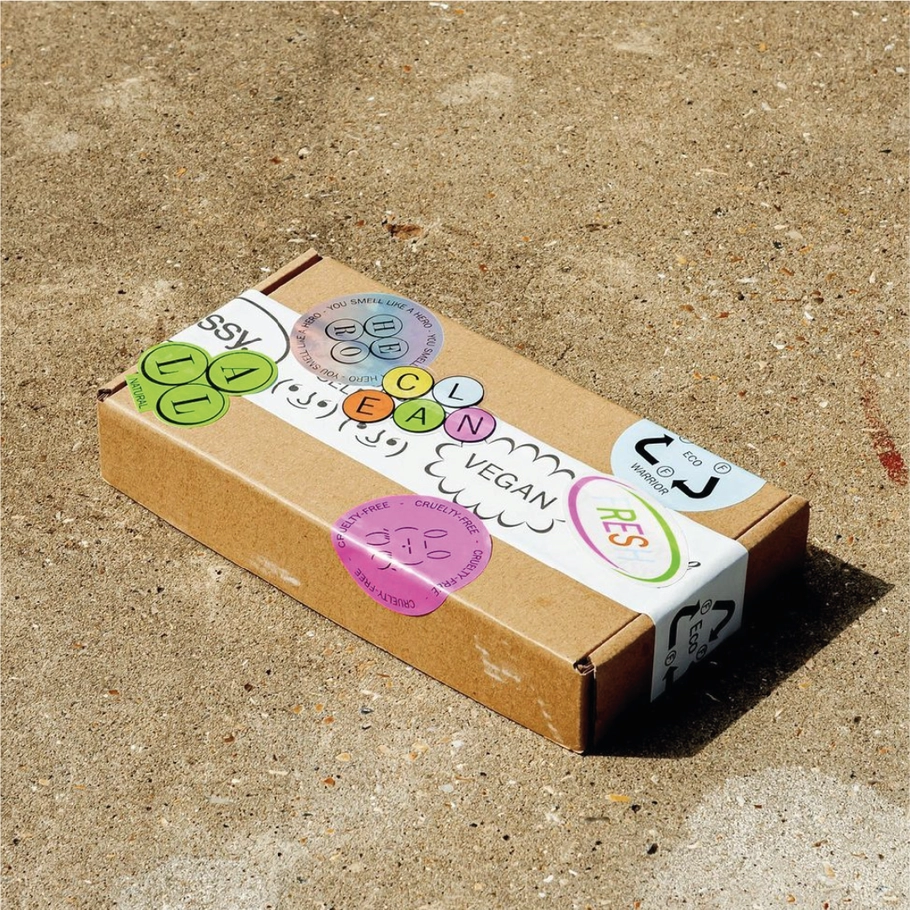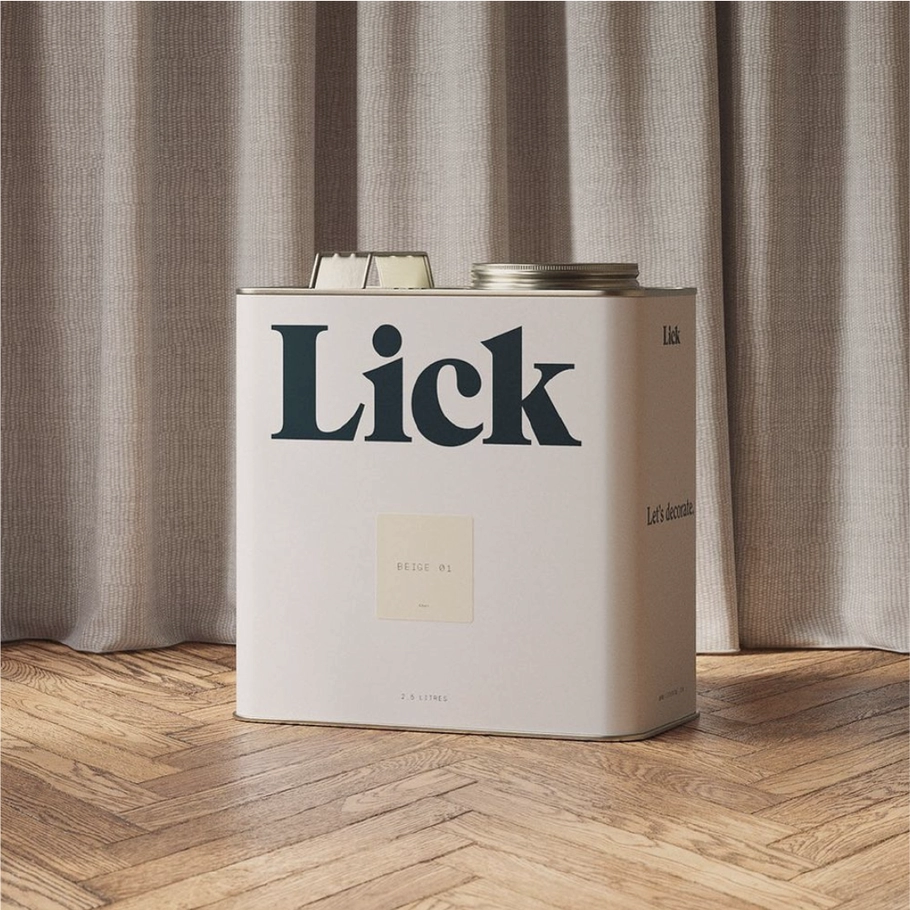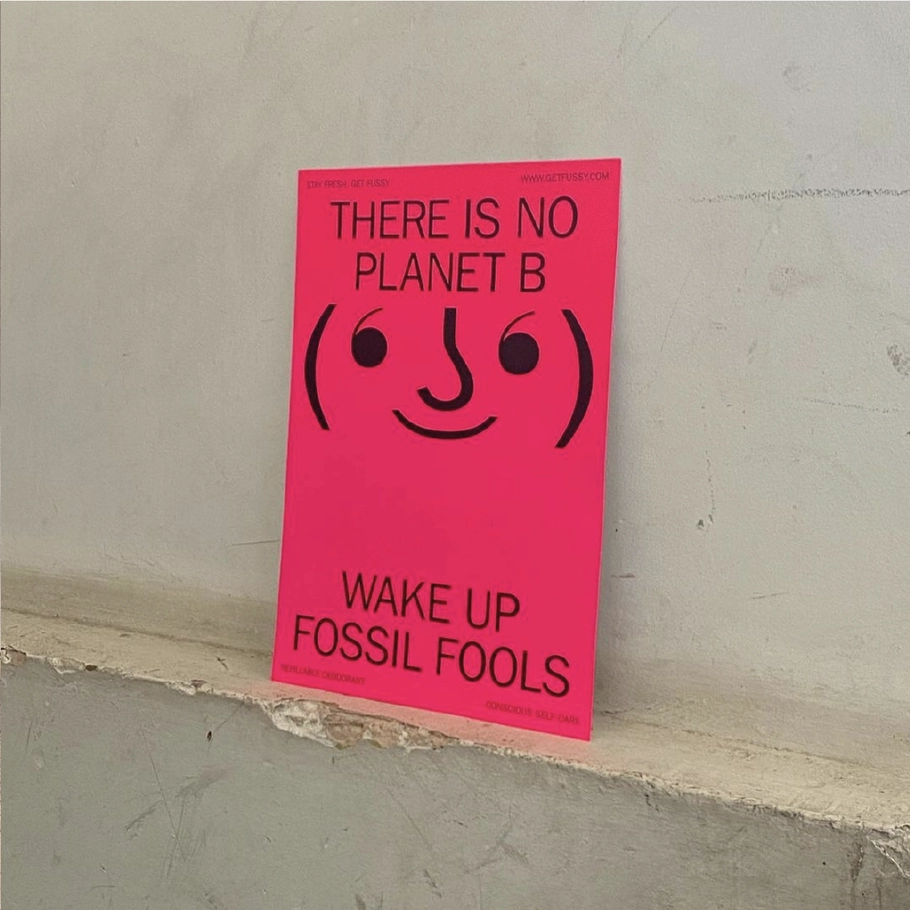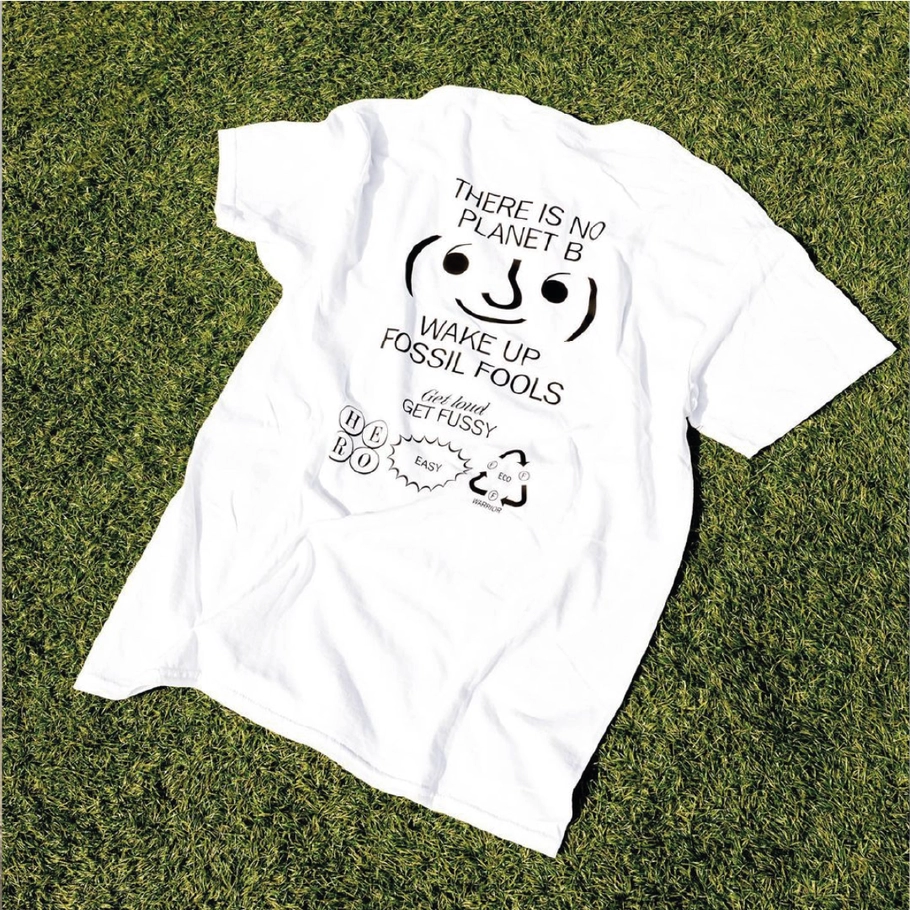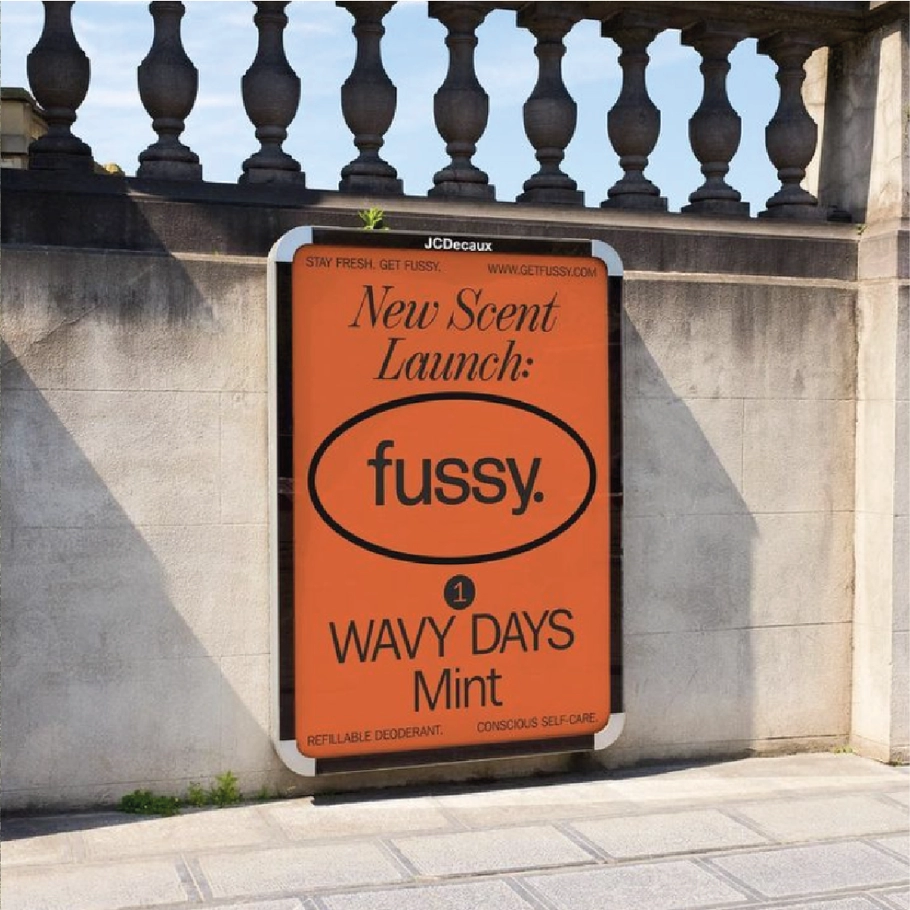
Creative Characters Ep. 15: James Horwitz.
“ There are a lot of factors that help frame the successes of a project, but one of the most important is whether you create the foundations for a brand to build on top of. ”
James Horwitz.
This week, Creative Type Director Charles Nix talks to James Horwitz, founder of the London-based design agency Two Times Elliott (IG: @twotimeselliott). Two Times Elliott featured heavily in Monotype’s 2020 Type Trends report, thanks to its inventive use of bold type, and even a quick glance at their portfolio reveals an agency working at the cutting edge of modern design. James spoke with us during a London heatwave and shared the lessons he learned from founding a design agency, his approach to guiding clients through the creative process, and the impact of Instagram and social media on branding and design.
“For me, a brief isn’t necessarily a list of deliverables,” Horwitz says.”In reality, it is our job to try and create a framework that provides longer-term success than the immediacy of delivery. And I think this is something that’s a big part of the misconception about the role of a designer, especially within a brand-based studio. I would, say our output is extremely varied, but at the core, it’s brand and an exercise to educate a client beyond the list of deliverables.
“I think it’s important that we aren’t simply known as someone who can bring a visual solution to life. There’s a lot of factors that help frame the successes of a project, but one of the most important is whether you create the foundations for a brand to build on top of. It’s that metaphor of, if you don’t have the foundations done correctly, you may build a beautiful house and it may sit there for a couple of years. But then you start to get subsidence and the walls fall down and you get probably very angry wives or husbands and kids falling through the holes in the floor.”